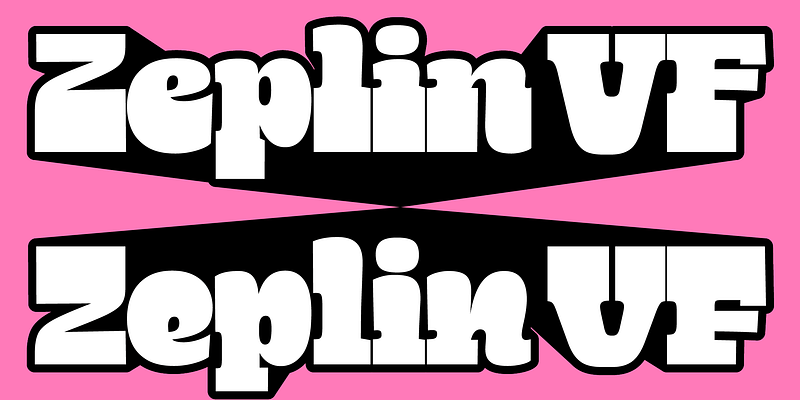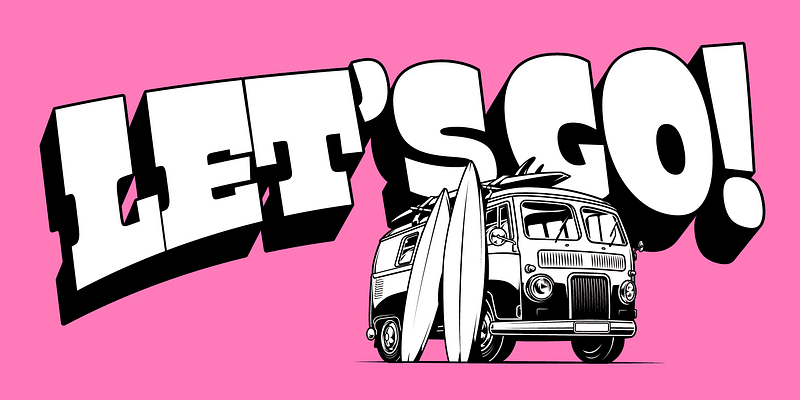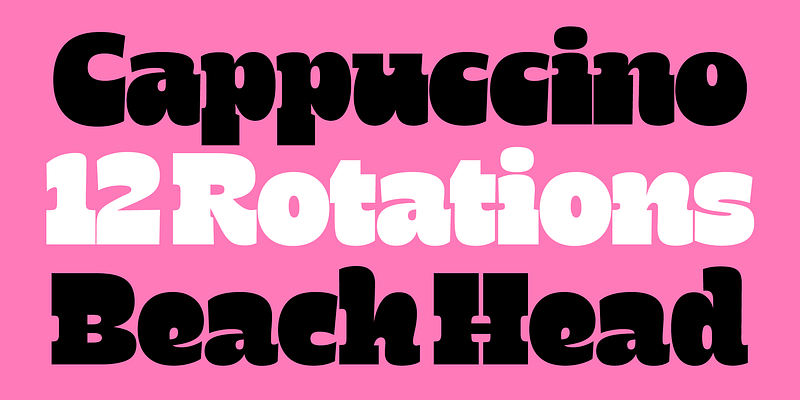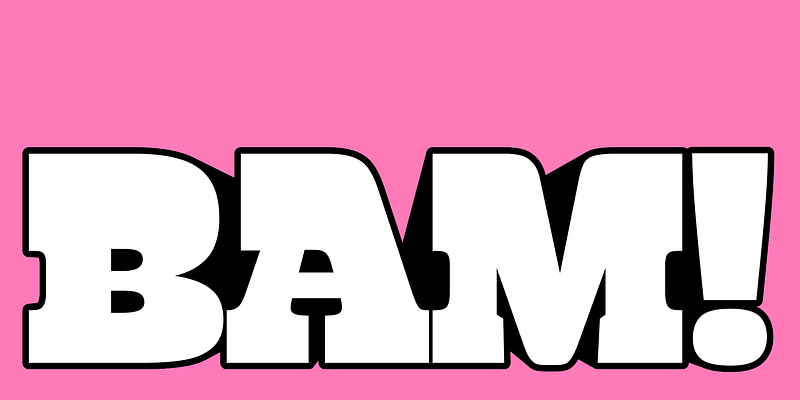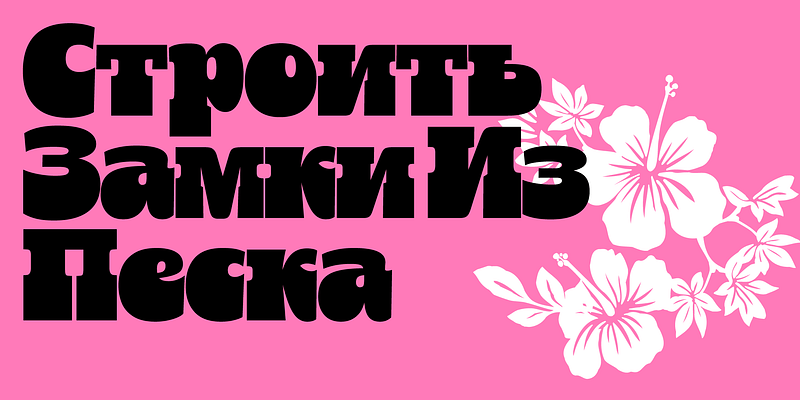
Zeplin is a reverse contrast typeface that is all about expression and chill vibes. With a movable inner counter, Zeplin explores the possibility of movement in type. Taking on elements of big fat cowboy fonts and brush lettering, its undulating lowercase, and solid, grounded uppercase give Zeplin a unique but familiar flavour, that is both bold and inviting.
Zeplin really shines in a animated setting. It features 2 variable font axes that let you control the inner counter of the character. Making your words truly come to life!